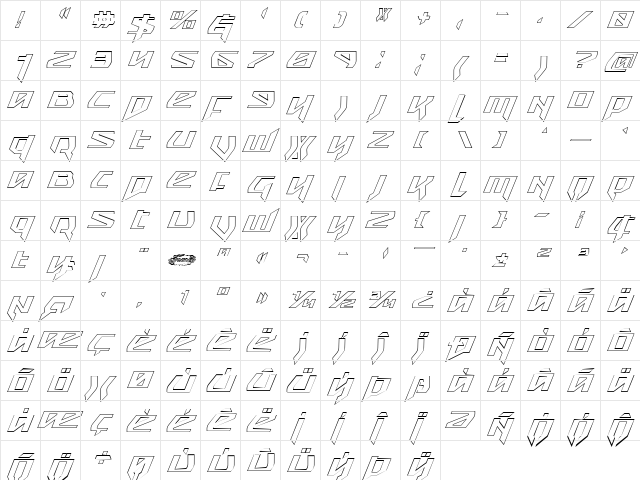
Snubfighter Outline Italic Italic
| Designer | Erikstormtrooper and Iconian Fonts |
Design Context for Snubfighter Outline Italic Typeface
Snubfighter Outline Italic brings ornamental detail and strong personality to headlines and identities, where visual impact matters more than quiet functionality. The dynamic lean of this cut emphasises speed and emphasis in any layout.
Font Pairing: Pair with a clean neutral sans-serif for body copy to let Snubfighter Outline Italic's character lead without overwhelming the composition.
Pro Tip: Treat Snubfighter Outline Italic as the centrepiece of your typographic hierarchy. One strong heading set in a decorative face can carry an entire layout.